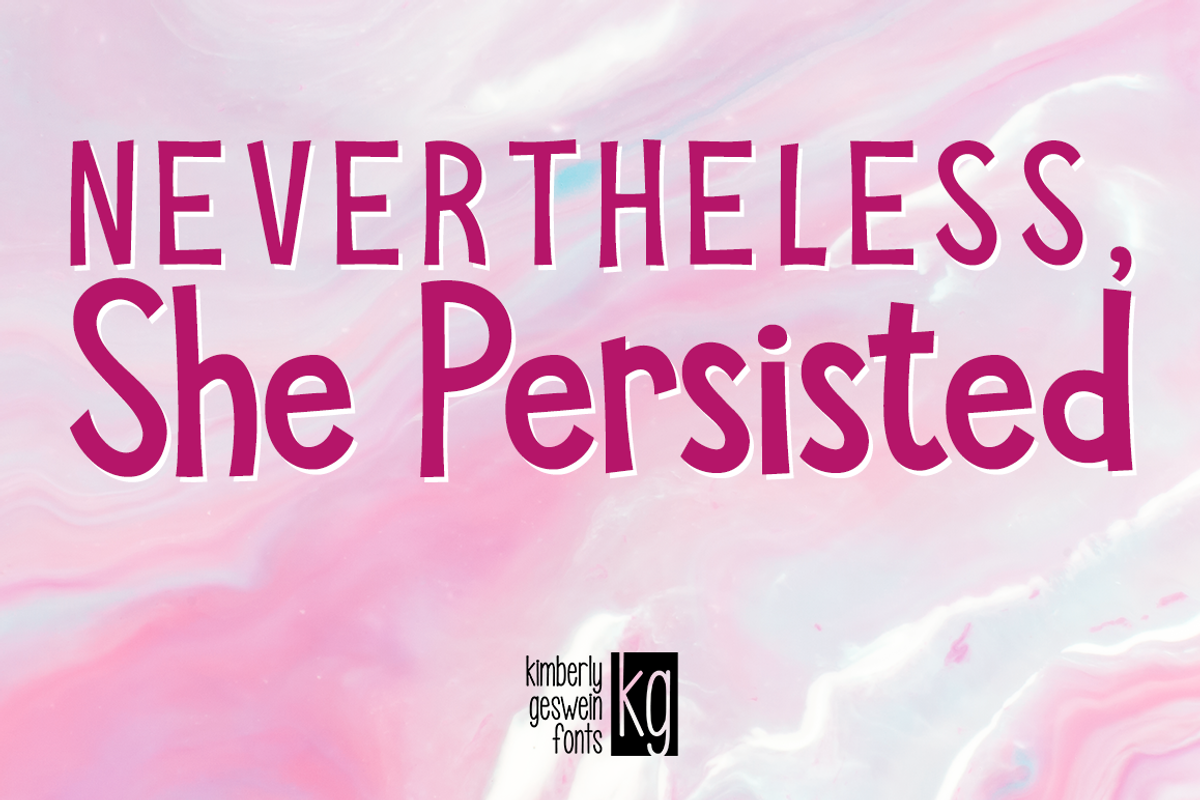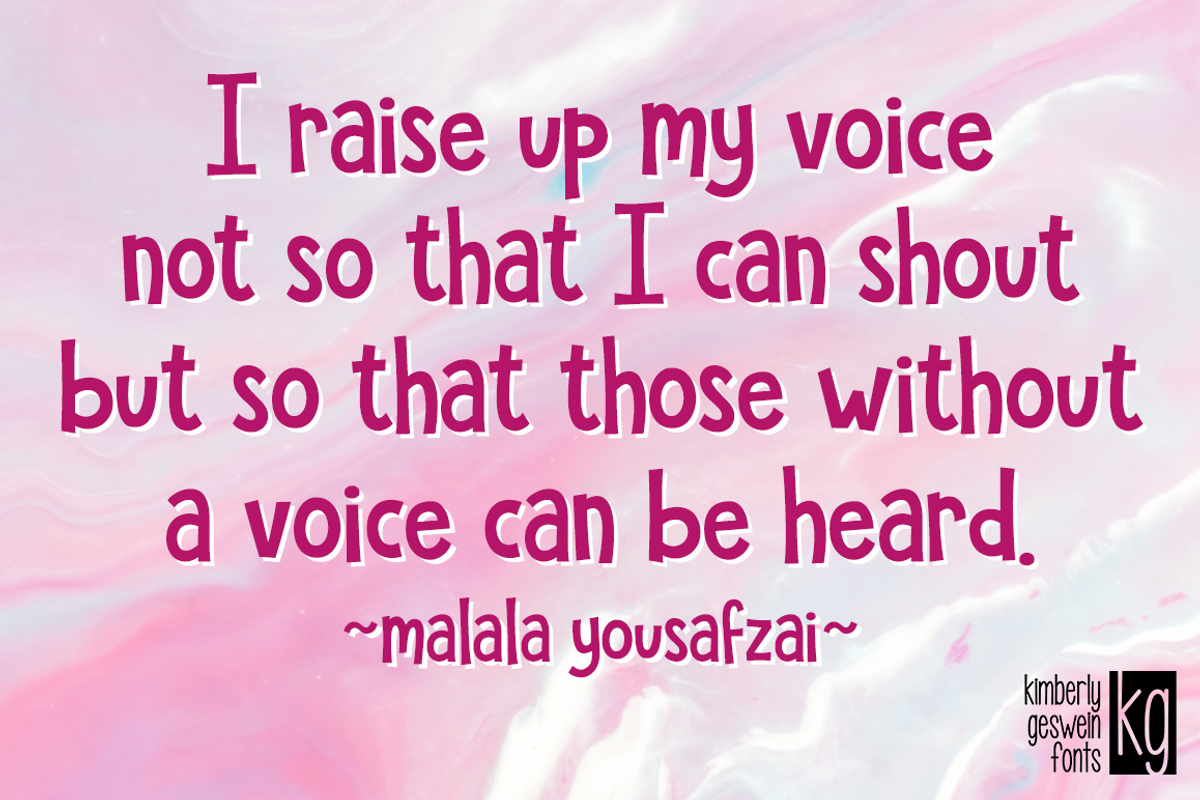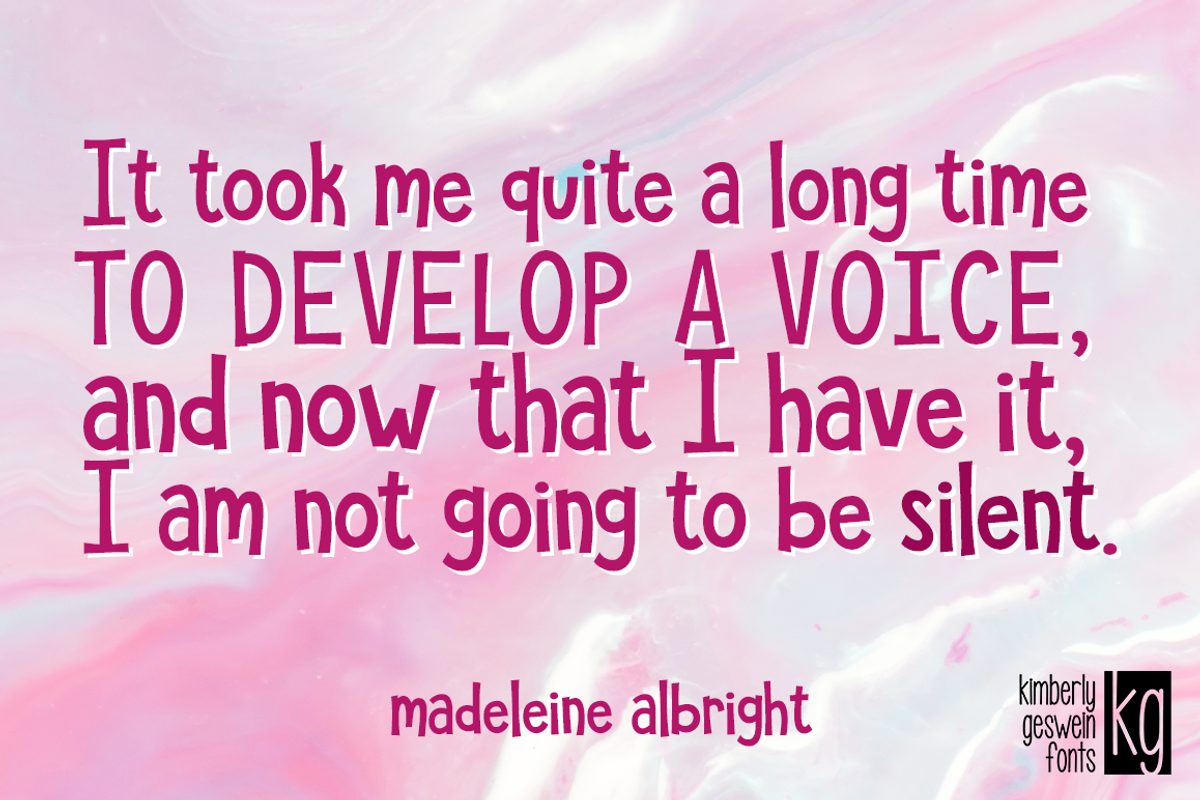
KG She Persisted Font
KG She Persisted Font by Kimberly Geswein Fonts is a font selected for branding, posters, packaging, typography.
Why KG She Persisted Font is worth a look
KG She Persisted Font by Kimberly Geswein Fonts fits naturally into Branding, posters, packaging, typography.